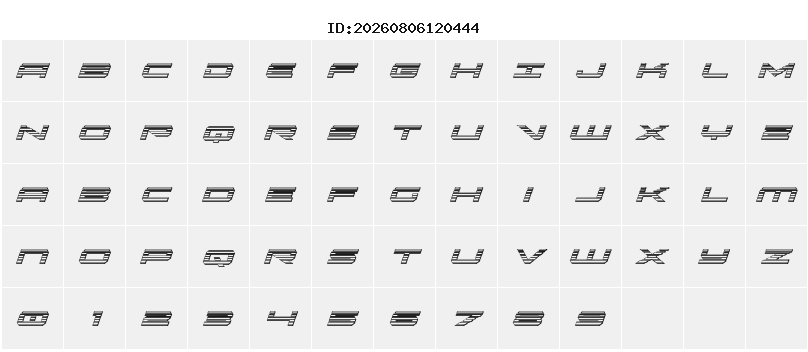
Oramac Chrome Italic Preview
About Oramac Chrome Italic.ttf
Oramac Chrome Italic.ttf is a modern, elegant sans-serif font designed for ultimate readability and visual harmony. Perfect for branding, headlines, web design, and print materials.